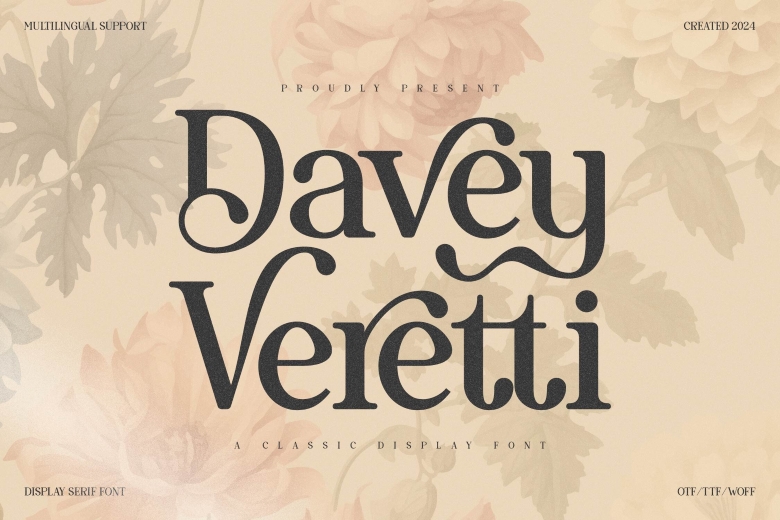
Davey Veretti Font
Davey Veretti is a classic, strong and powerful serif display font that will suit a wide range of projects particularly those created for Davey Veretti. Based on its design, it boasts of clean thin lines, fineser and sharper curves, and conventional letters shapes, best suited for headlines, logos and titles. The font gives a long lasting and classy touch to any designs that will be done by it.
Davey Veretti Serif Font